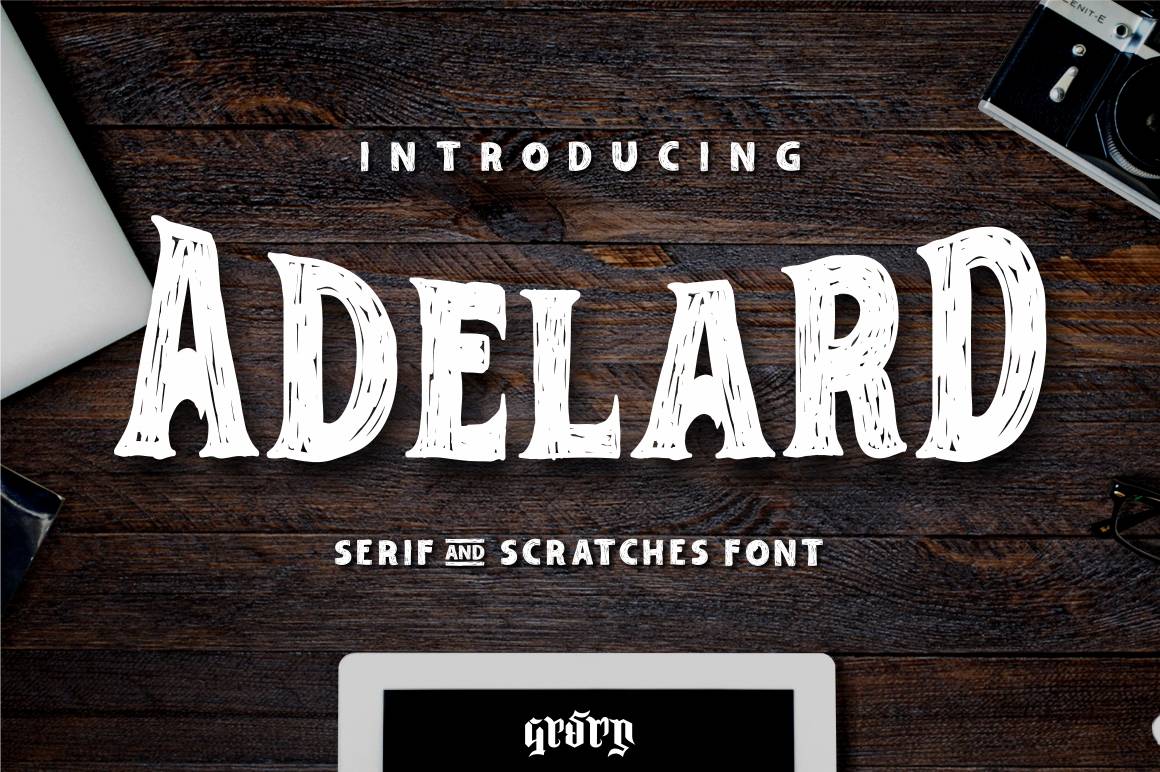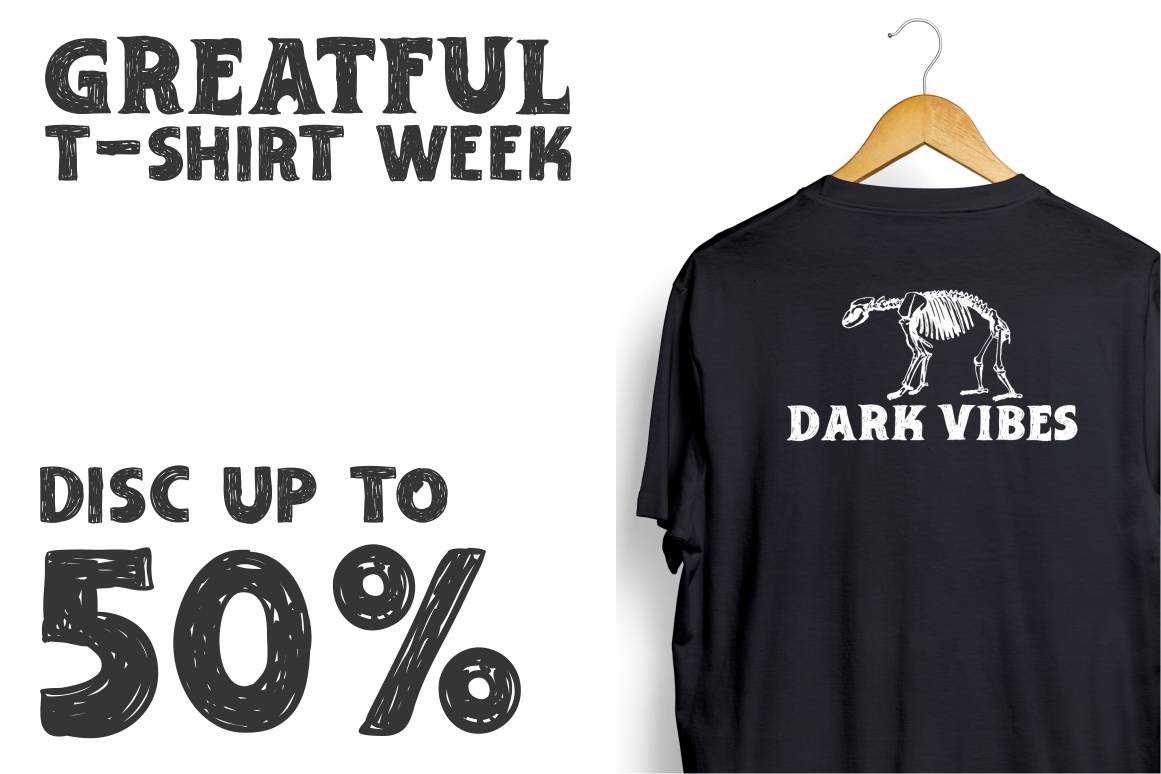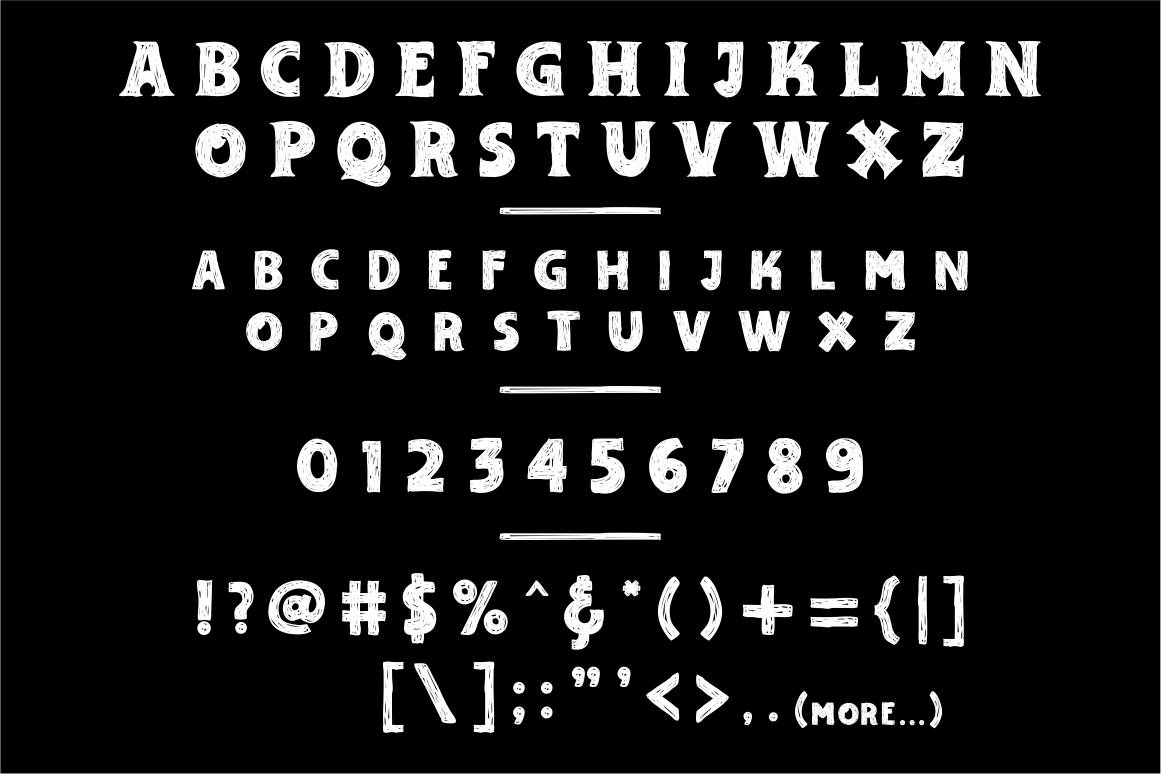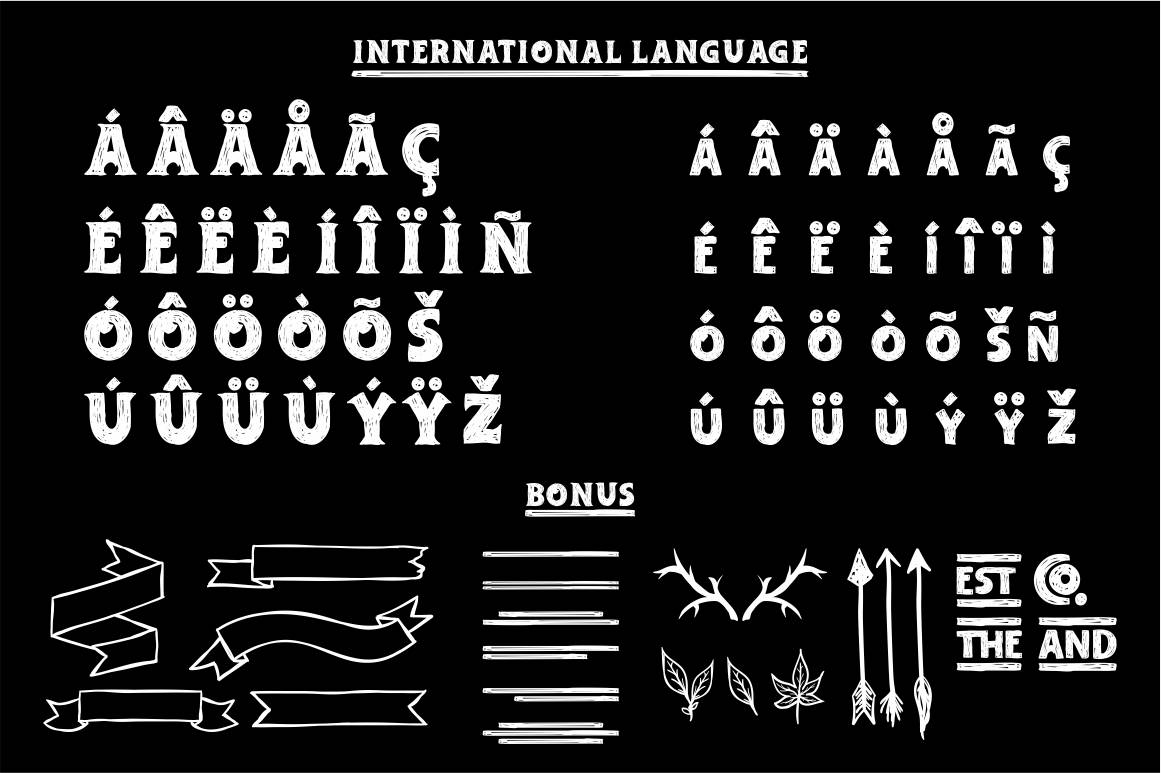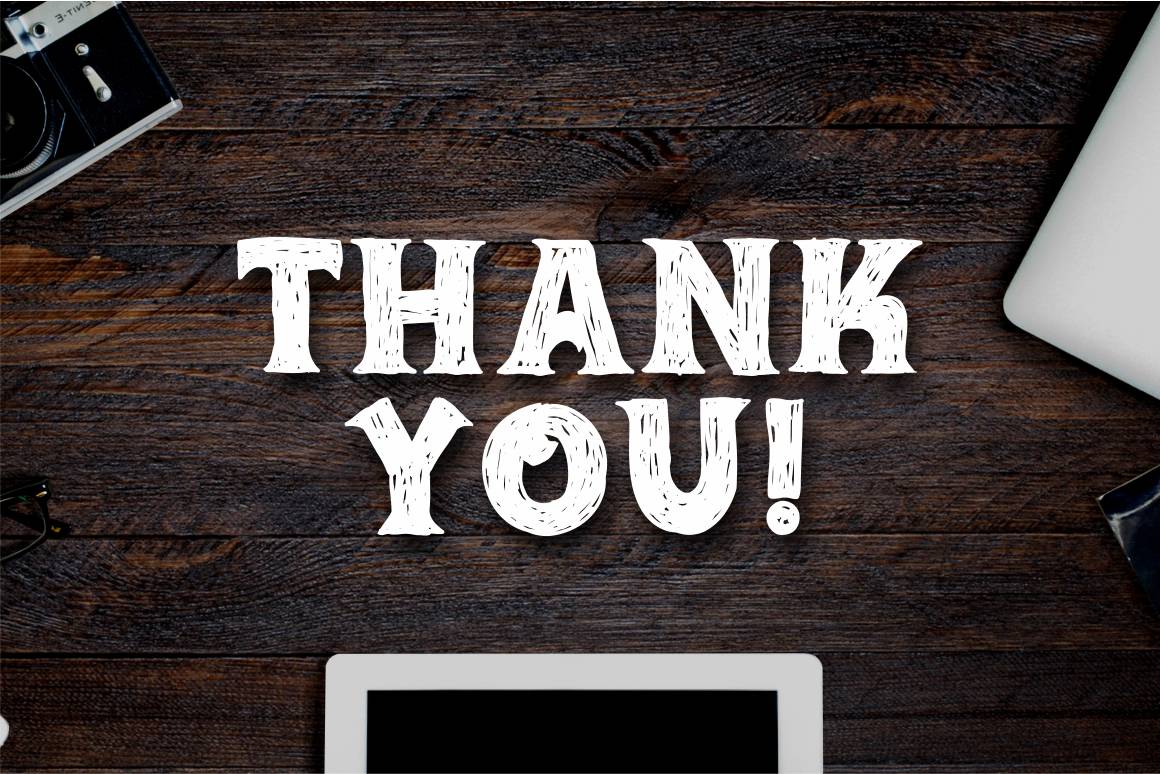
Adelard Serif & Scratches is a bold, playful serif font with a hand-drawn, textured look that gives it a lively and rustic charm. Its sturdy, slightly condensed letterforms with visible scratch details create a distinctive, informal style perfect for branding, posters, or creative editorial projects that want to convey a handcrafted or vintage-inspired feel. This font works well for eye-catching headlines and logos where personality and uniqueness are key.
Adelard Serif & Scratches Font
About Adelard Serif & Scratches Font
| Font family | Adelard Serif & Scratches Font |
| Designer | GRSMN Studio |